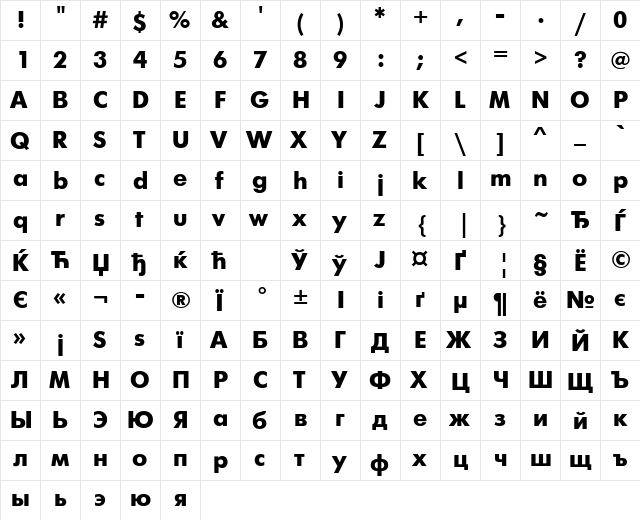
font192 Bold
Design Context for font192 Typeface
font192 takes a measured approach to typography — its balanced proportions and neutral character make it a reliable workhorse for both digital and print work. The heavy weight commands attention and anchors typographic hierarchies.